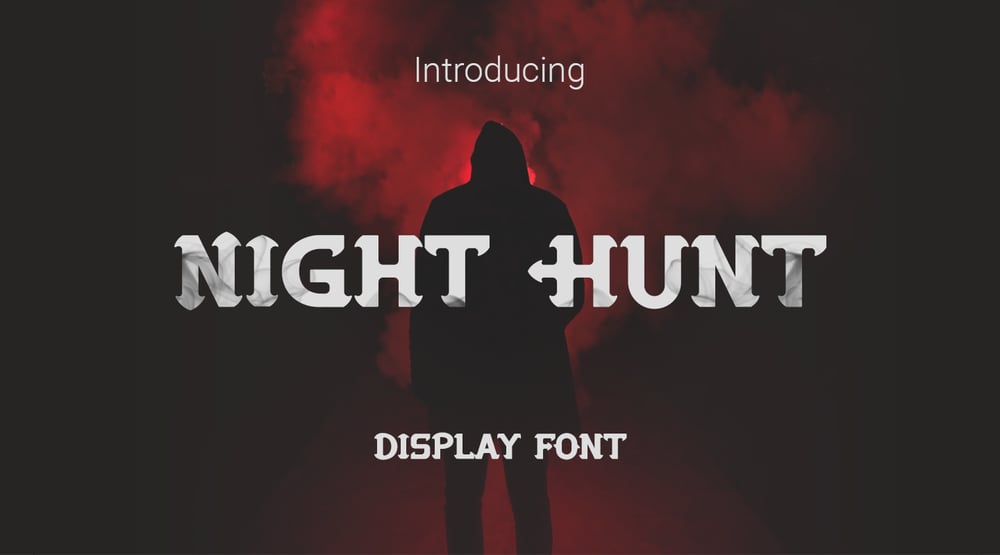
Night Hunt
Night Hunt font
Night Hunt Font Family was designed by RoninDesign and published by Ronin Design. Night Hunt contains 1 styles and family package options. Night Hunt is a display font, strong and elegant. Night Hunt designed for movie title, poster and cover design, apps and games design